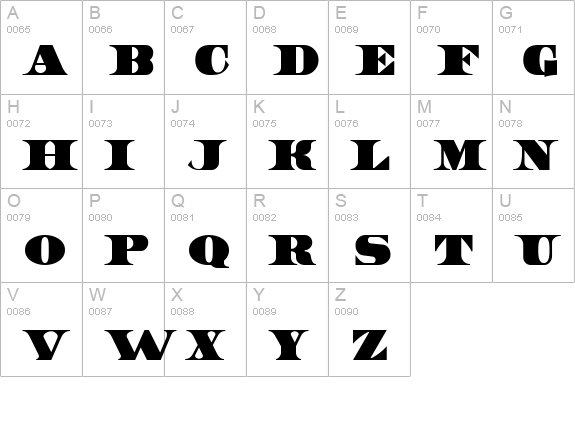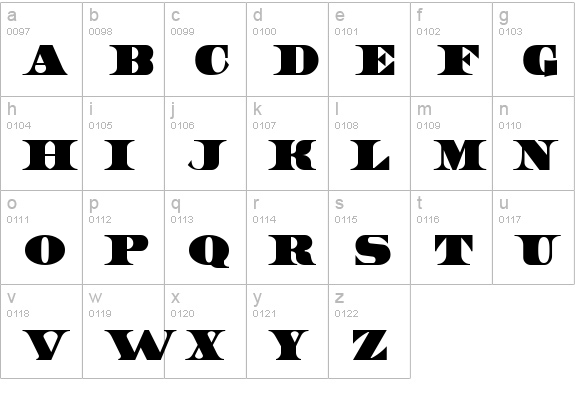
Dollar Font Details
The Dollar font is a stylish and versatile typeface that exudes confidence and sophistication. With its sleek lines and modern aesthetic, this font is perfect for creating eye-catching designs for a variety of projects. Whether you're designing a logo, poster, or website, the Dollar font will add a touch of elegance and professionalism to your work. What's even better is that the Dollar font is available for free download at FontsMarket.com. That's right, you can get your hands on this amazing font without spending a dime. So why wait? Download the Dollar font today and elevate your designs to the next level.